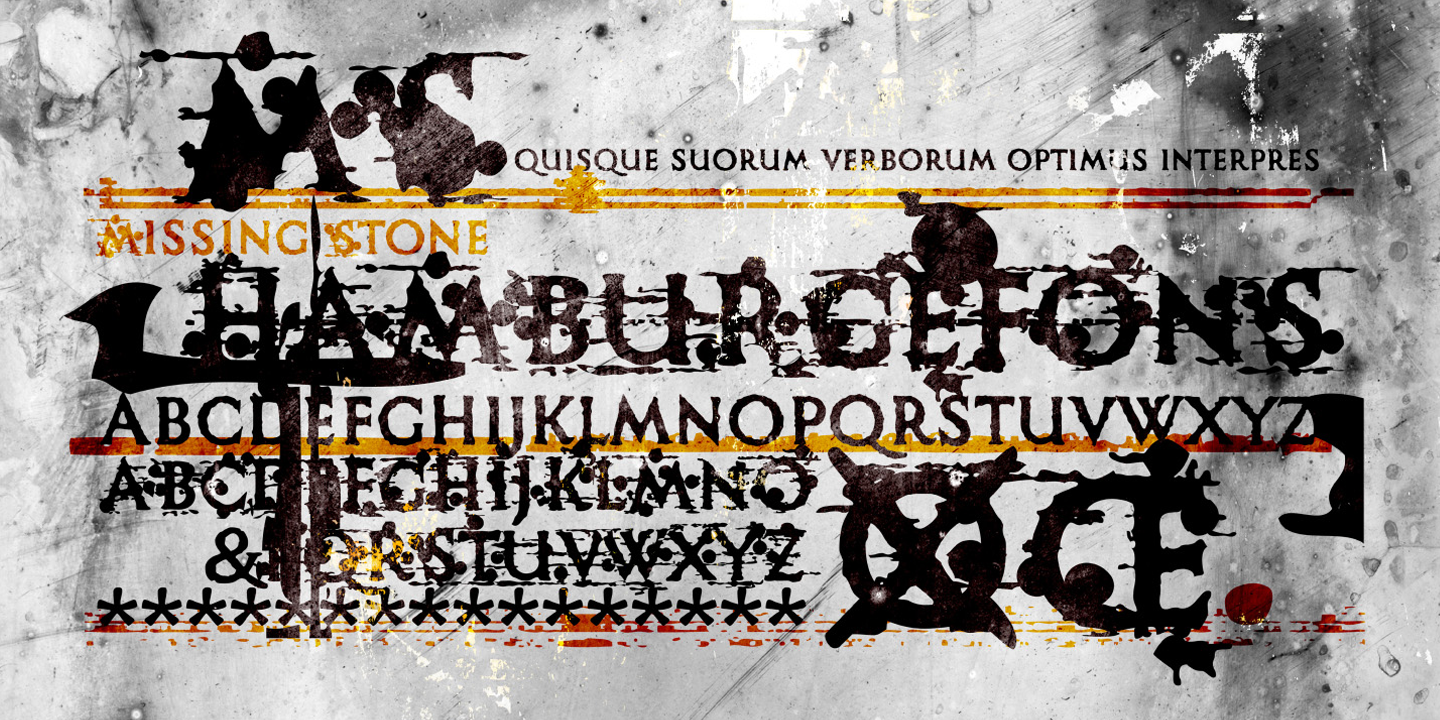
Missing Stone Font is perfect for archaeological expedition branding, ancient history museum communications, mystery adventure gaming interfaces, historical documentary titles, treasure hunting company logos, ancient civilization educational materials, archaeological consulting services, and antiquarian bookstore signage. This intriguing typeface excels in applications where historical mystery, archaeological discovery, and ancient wisdom are essential for connecting with audiences fascinated by lost civilizations and the compelling mysteries of human history.
What makes Missing Stone Font so exciting is its evocative ability to capture the essence of ancient inscriptions and archaeological discoveries that have shaped our understanding of lost civilizations. The font features weathered, stone-carved letterforms with authentic erosion patterns that simulate ancient tablets and archaeological artifacts. Its mysterious character conveys historical significance, scholarly discovery, and ancient wisdom - essential qualities for brands serving history enthusiasts, researchers, and adventurers who appreciate archaeological heritage and the profound mysteries of ancient cultures.
The Missing Stone Font family includes multiple weathered weights and archaeological variations that enhance its historical appeal. Some versions feature heavily distressed textures that simulate centuries of erosion and weathering, while others provide more legible variants that maintain the font's ancient character with improved readability for educational applications and professional archaeological communications.
Whether you're creating branding for historical institutions, designing materials for archaeological services, or developing marketing campaigns for history-focused entertainment, Missing Stone Font Free Download provides the authentic historical gravitas your project requires. The font's archaeological character makes it particularly effective for brands targeting history buffs and audiences who appreciate ancient mysteries, scholarly research, and the fascinating discoveries of archaeological exploration.
Uncover ancient mysteries with Missing Stone Font and bring historical authenticity to your brand communications with typography that honors the enduring legacy of lost civilizations and archaeological discovery.